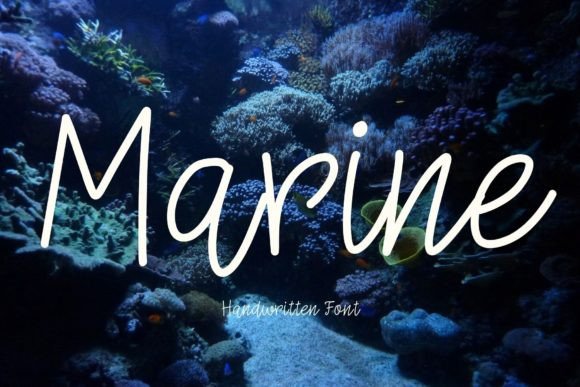
Embark on a typographic adventure with Marine Font, a script font family that oozes charm and authenticity. Dive into a world of creative possibilities, where your words dance with elegance and grace.
With Marine Font, you hold the key to unlocking a universe of design wonders. Whether you're crafting heartfelt blog posts, designing logos that leave a lasting impression, or creating branding materials that speak volumes, Marine Font is your trusty companion.
Visualize your social media posts adorned with Marine Font, captivating your audience with its playful and authentic flair. Let your Instagram feed bloom with personality, as Marine Font transforms your captions into works of art.
Envision your wedding invitations, greeting cards, and planners adorned with Marine Font, adding a touch of whimsy and charm to life's special moments. Its delicate strokes will transform your words into heartfelt expressions, leaving a lasting imprint on the hearts of your loved ones.
Unleash your creativity with Marine Font, the perfect font for any project that demands a touch of playfulness and authenticity. Let your imagination soar as you design photo albums, decorations, and more, knowing that Marine Font will elevate your creations to new heights of visual delight.